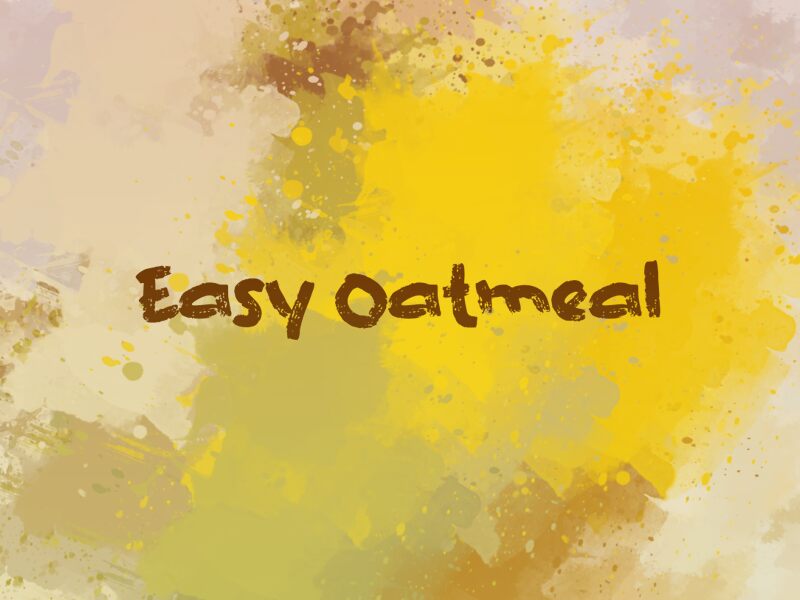
Easy Oatmeal, a bold and expressive brush font designed by wep, adds a touch of artistic flair to any project. With its extra-expanded width, this versatile typeface is perfect for eye-catching headlines and logos. The bold strokes and organic feel of Easy Oatmeal make it ideal for creating designs that exude energy and creativity. Whether you're designing posters, packaging, or social media graphics, this font will leave a lasting impression. Let Easy Oatmeal take your projects to the next level with its captivating style and unique charm.
Easy Oatmeal